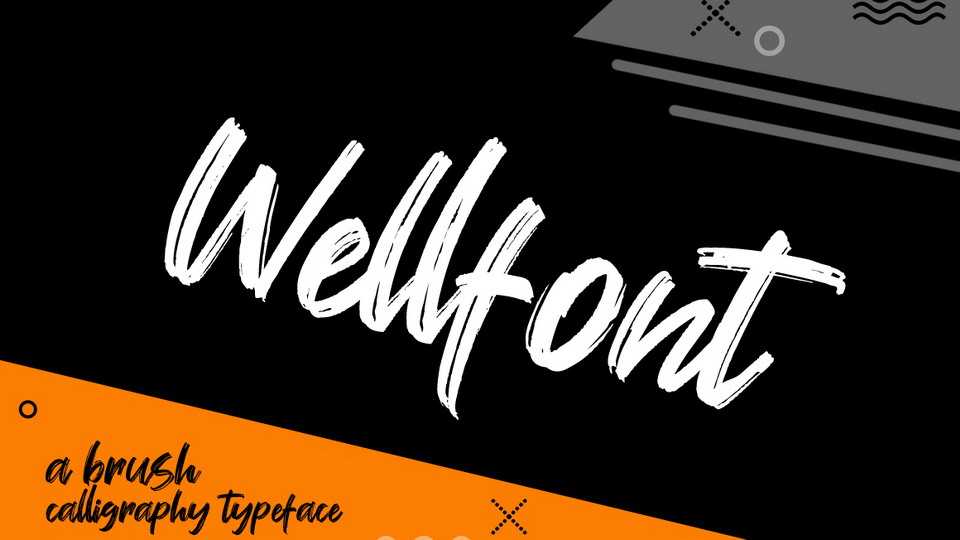
Download Wellfont font, a fresh handwritten brush typeface with grungy vintage feel. Wellfont is great for posters, merchandise, social media and more.